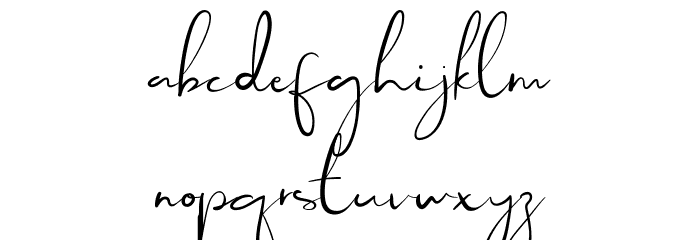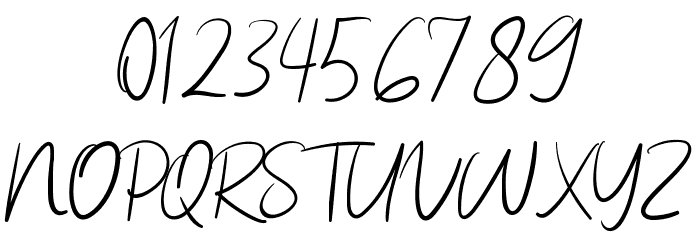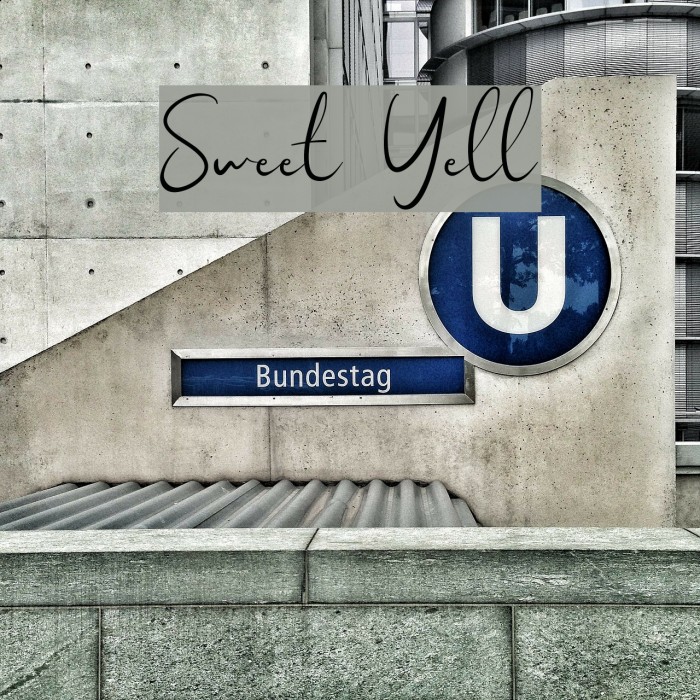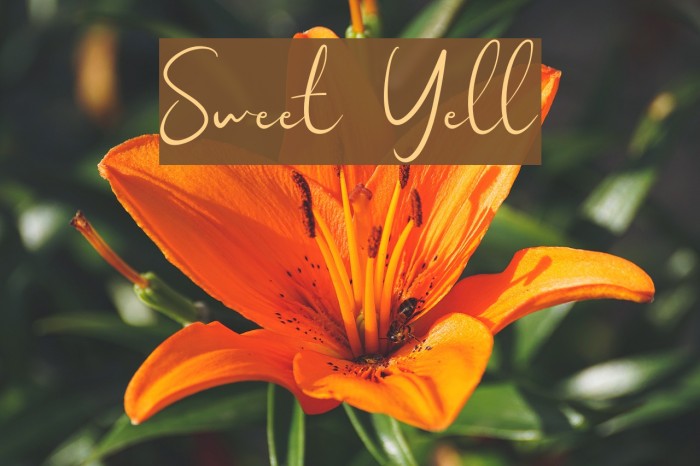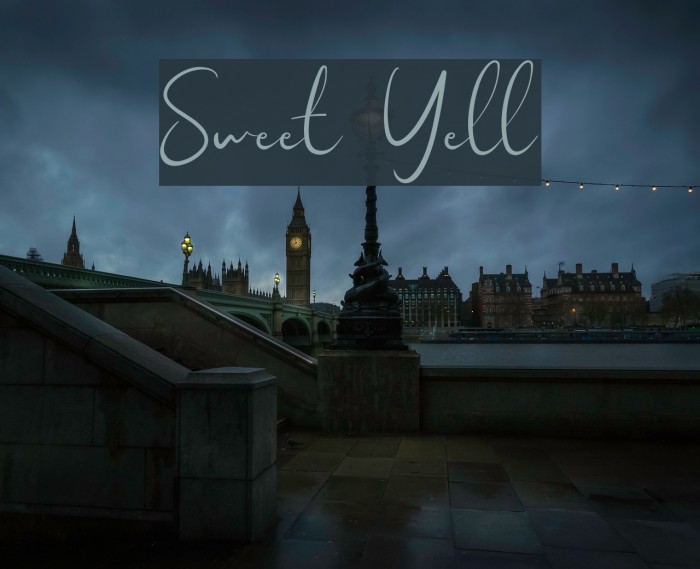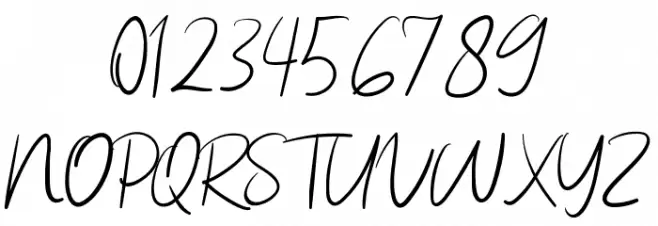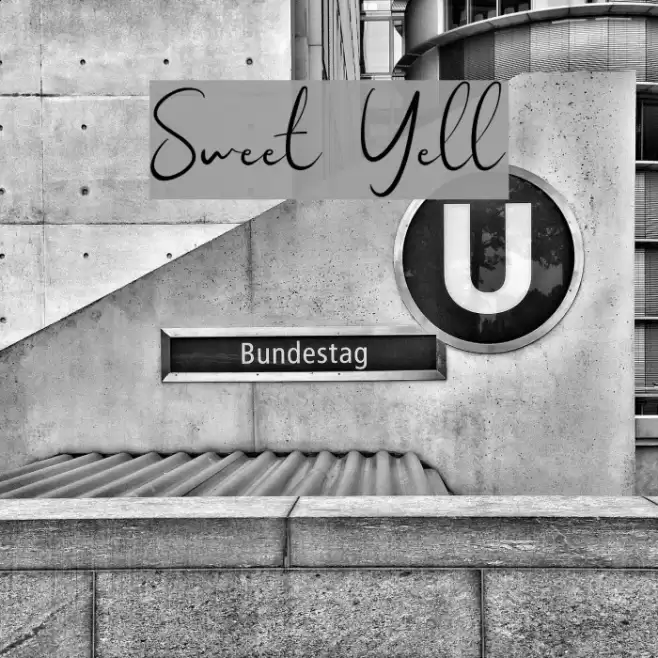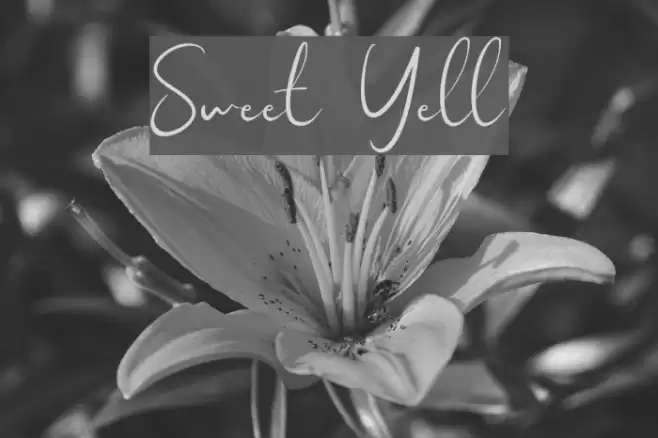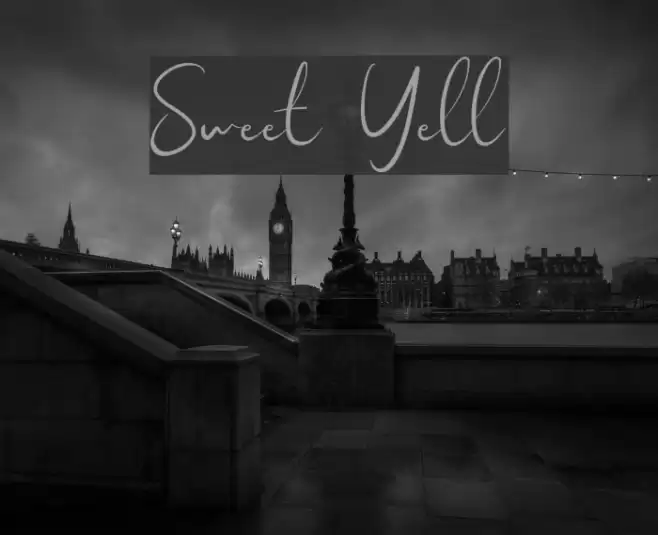
Sweet Yell Font
This font features a playful and elegant script style, characterized by fluid, connected strokes that mimic natural handwriting. The uppercase letters are bold and expressive, with a slight slant that adds a dynamic feel. The lowercase letters are more delicate, maintaining a consistent flow that enhances readability. Numbers are crafted with the same attention to detail, offering a cohesive look across all characters. The special characters blend seamlessly with the rest of the font, ensuring versatility in various design contexts. This font's overall appearance is both sophisticated and approachable, making it suitable for a wide range of creative projects.
A playful and elegant script font with fluid, connected strokes.
- Proposed Projects: Ideal for wedding invitations, greeting cards, branding, and social media graphics.
- Use Case: Logos, Headlines, Invitations